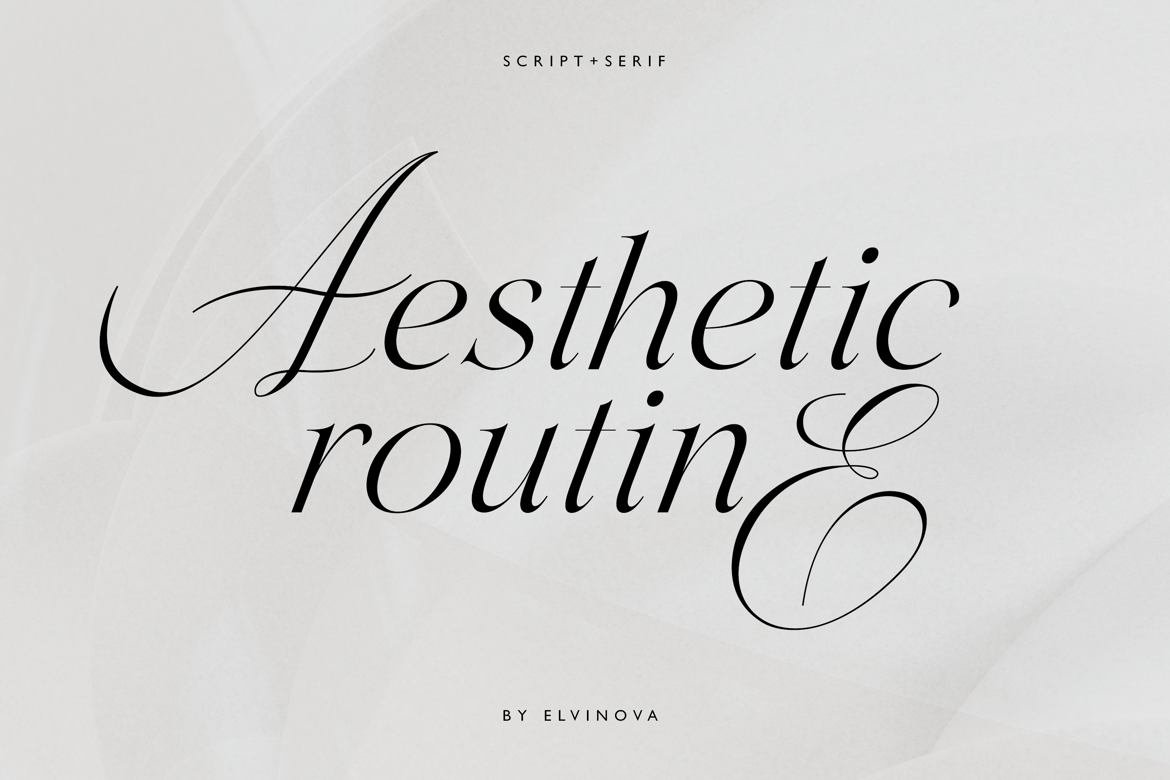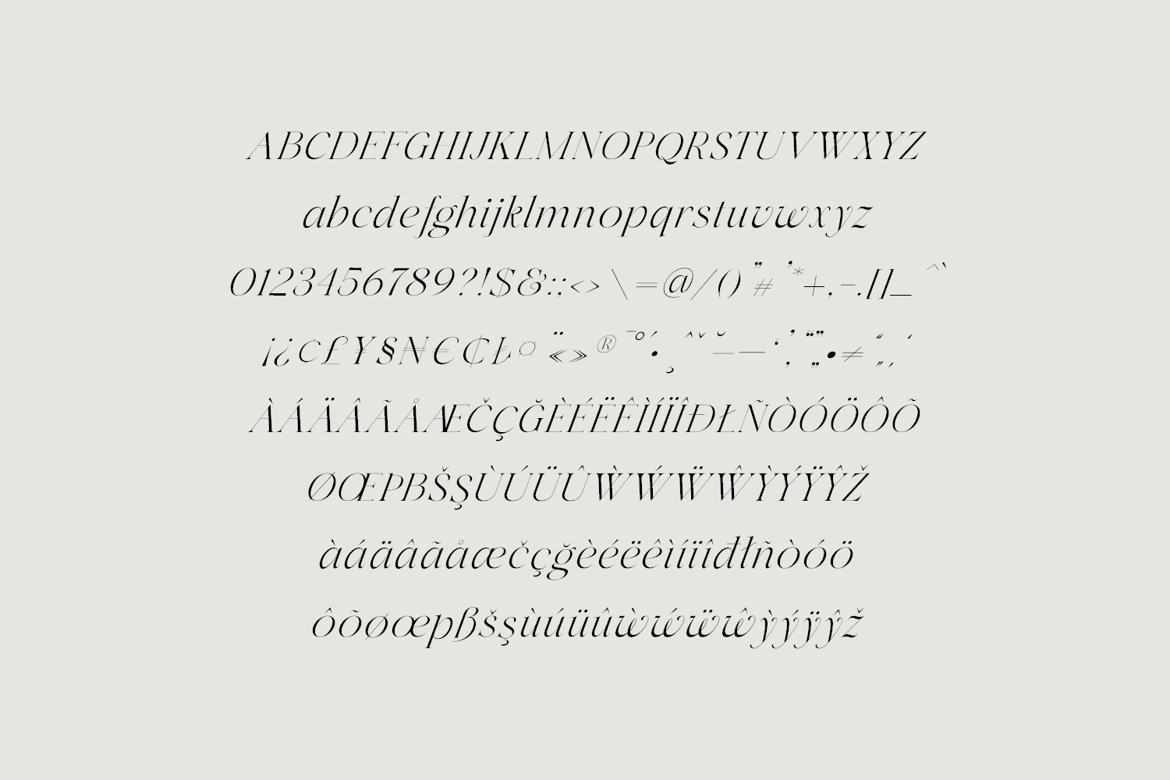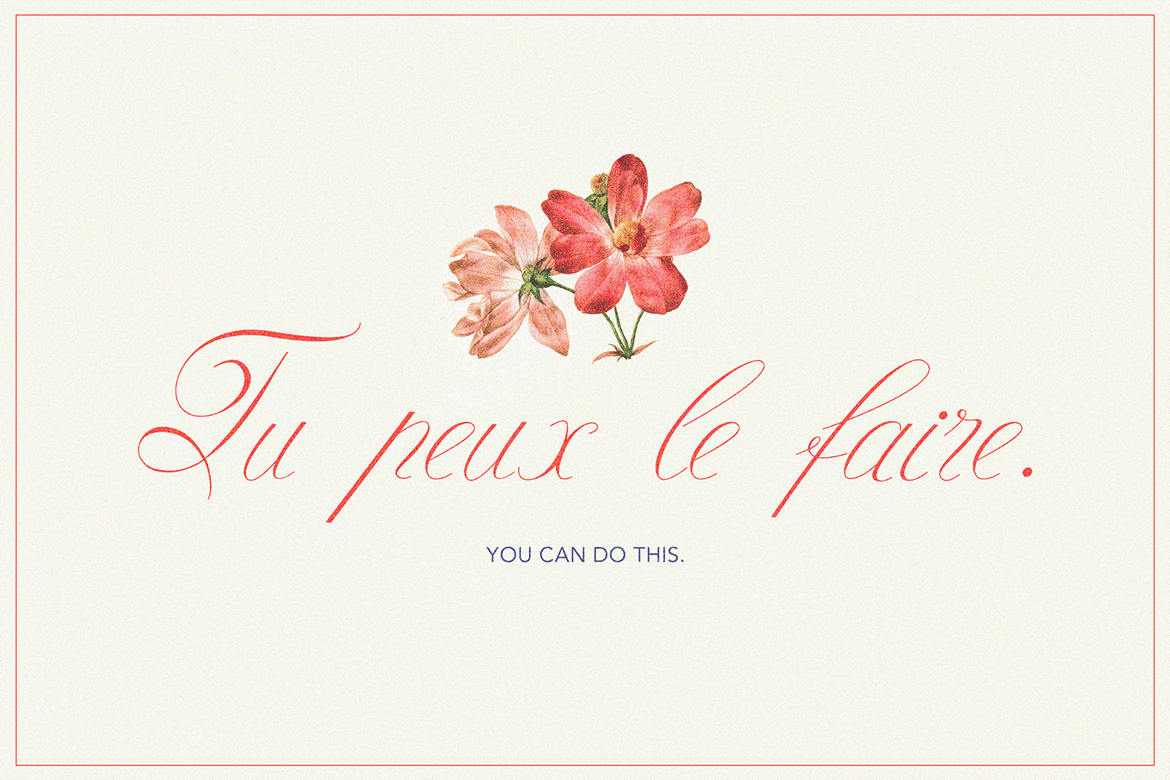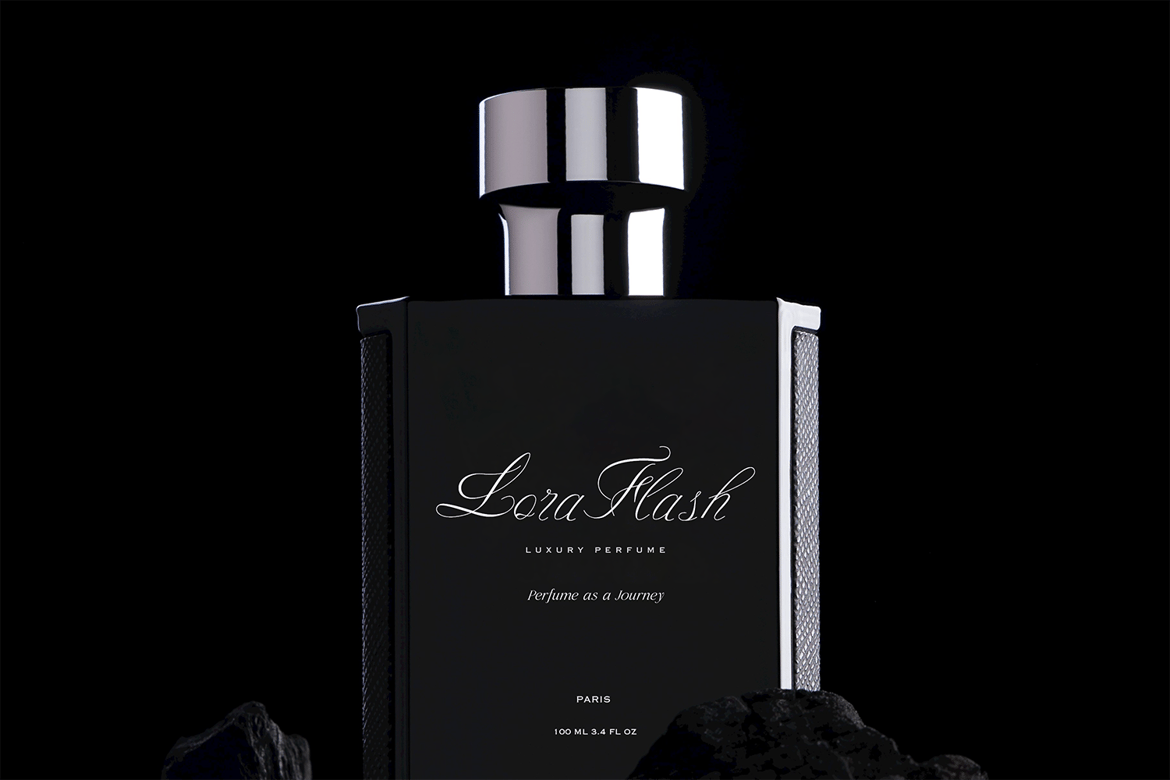
Serif & Script Font Duo
Elegant serif and script font duo. Together, these fonts create a harmonious duo that pairs the structured beauty of the serif with the expressive elegance of the script. They complement each other in formal print materials such as wedding invitations, upscale branding, and book covers where both style and legibility are essential.